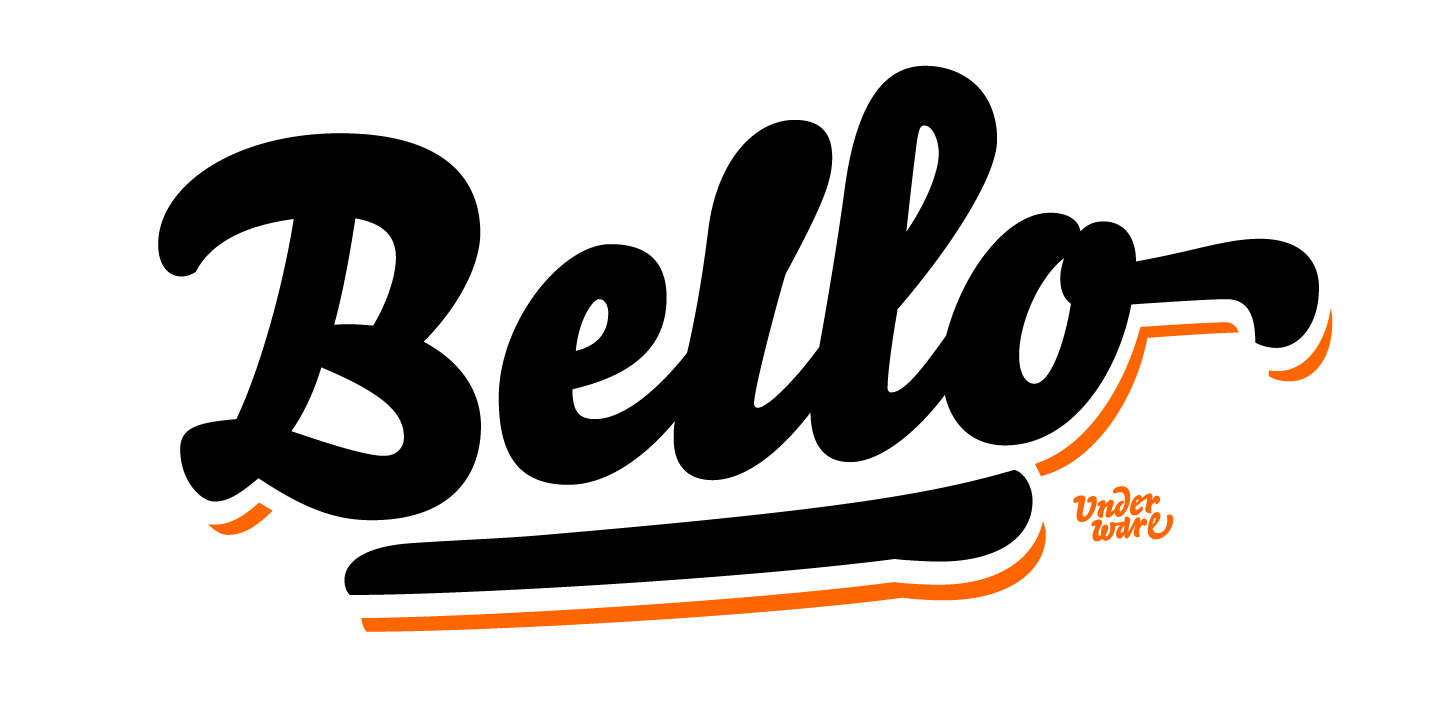
Bello Pro Font is an exquisitely beautiful and highly versatile script typeface that combines elegant fluidity with a charming, almost handcrafted warmth. Its natural, expressive strokes and sophisticated character make it an exceptional choice for projects aiming to convey luxury, intimacy, and a personal touch with refined artistry. Imagine it perfect for high-end wedding invitations, exclusive fashion branding, gourmet product packaging, heartfelt greeting cards, captivating social media graphics, and unique custom merchandise. This font excels in environments where a sense of bespoke quality, romantic allure, and polished artistry are paramount. It’s particularly effective for conveying sincerity and a memorable aesthetic, ensuring your message not only stands out but also resonates with an irresistible grace and personal appeal.
What makes Bello Pro Font truly exciting is its ability to infuse designs with a sense of authentic beauty and emotional resonance. It often features a comprehensive array of ligatures, stylistic alternates, and swashes that mimic genuine calligraphy, giving each character a unique, almost bespoke feel. This extensive set of OpenType features allows designers unparalleled creative freedom to craft truly unique and flowing typographic compositions, making it adaptable for various moods and styles. This font isn't just about displaying text; it's about telling a story with elegance and warmth, injecting your designs with a sense of personal connection and undeniable charm. It has a powerful ability to feel both incredibly luxurious and surprisingly versatile, making it an ideal tool for designers who want their work to convey sophistication, sentiment, and a truly memorable visual impact. Bello Pro Font Free Download empowers brands and creatives to project an image that is refined, authentic, and full of heartfelt artistry.
The Bello Pro Font family typically offers a range of options to enhance its versatility and expressive capabilities. You'll often find it available in a strong, elegant regular weight, with its "Pro" designation indicating an extended character set and advanced OpenType features. These features include multiple stylistic sets, terminal and initial forms, and a vast collection of ligatures, allowing for incredibly fluid and natural connections between letters. The comprehensive character set generally covers standard Latin characters, numbers, and a selection of punctuation marks, ensuring that Bello Pro Font is suitable for a wide variety of creative and commercial applications. Its distinctive and memorable presence ensures that any project featuring Bello Pro Font will leave a strong, lasting impression.